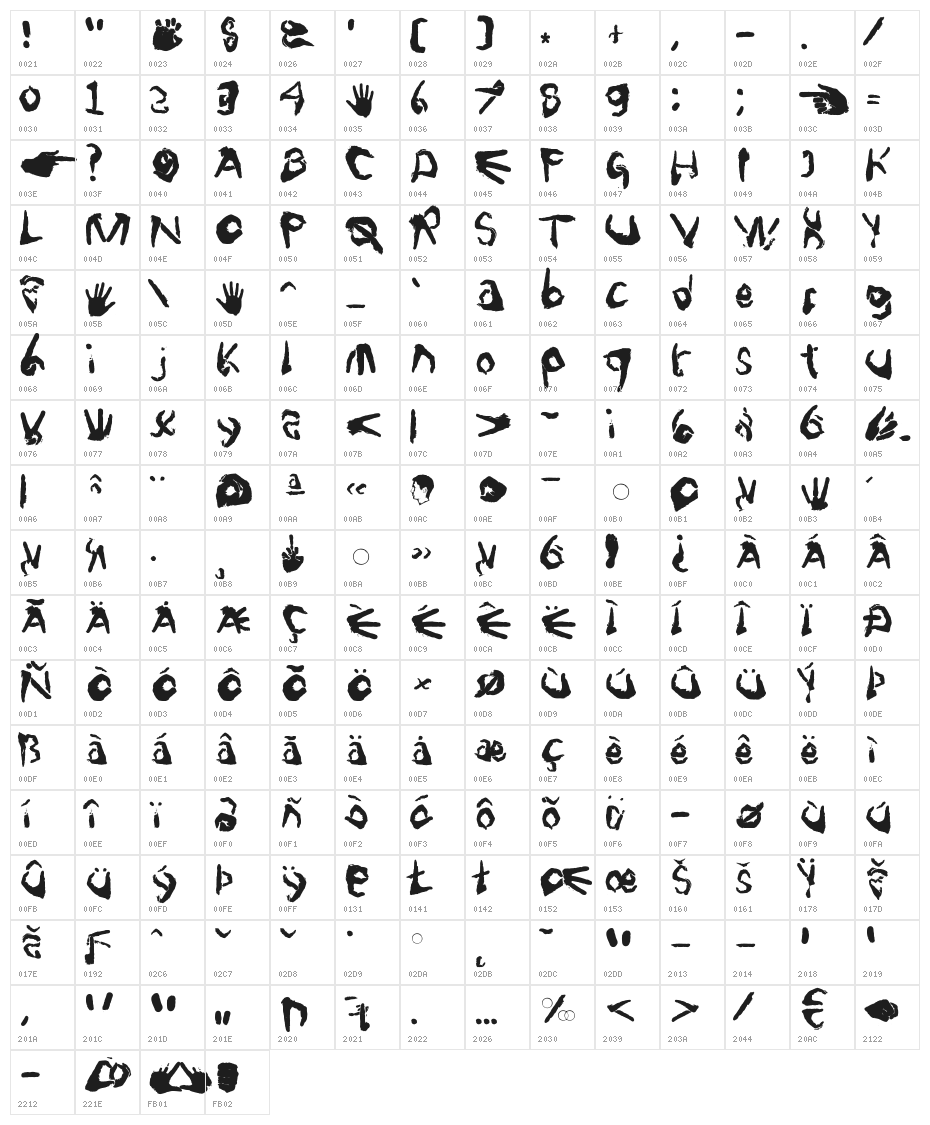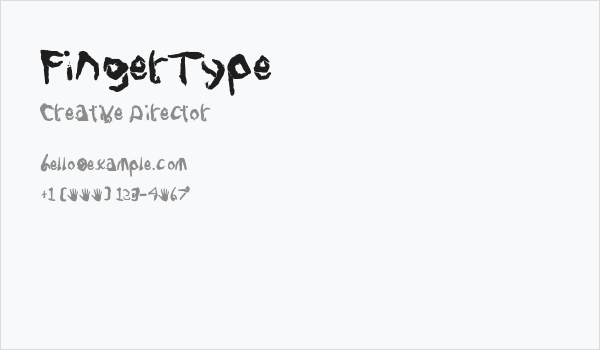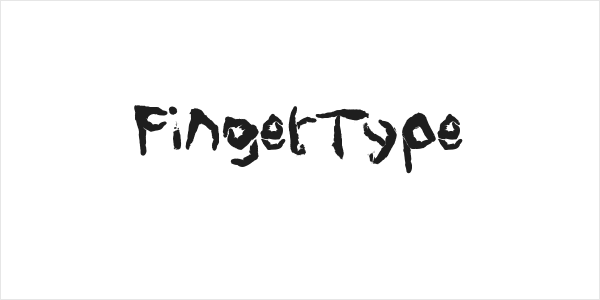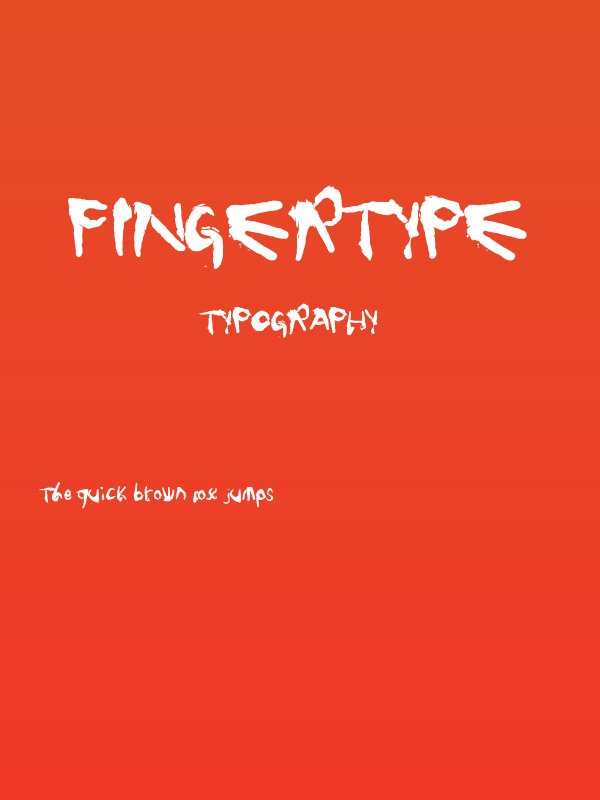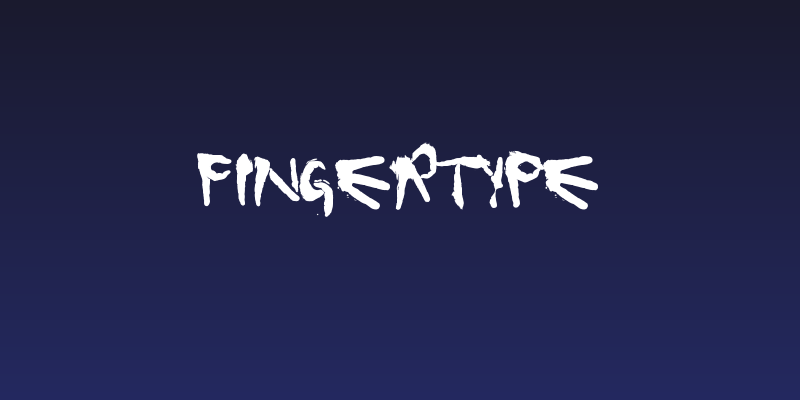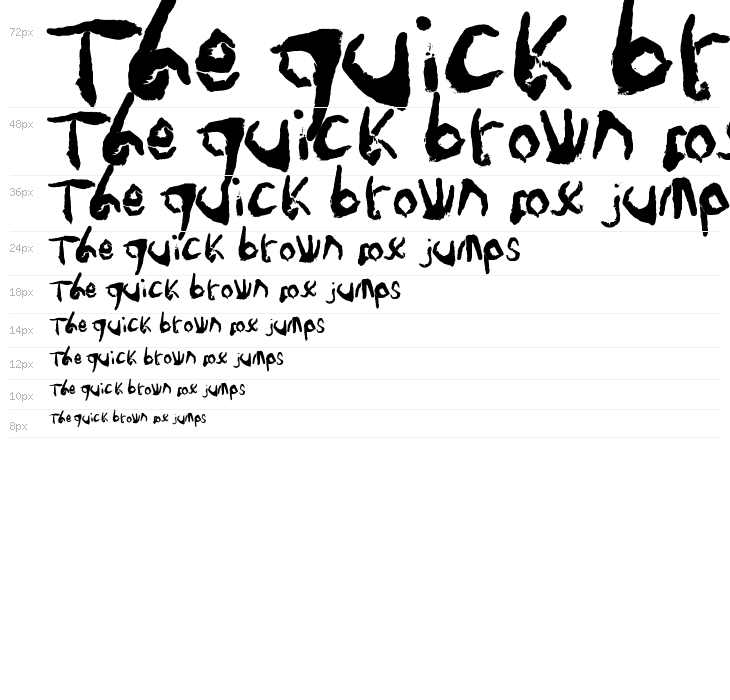
FingerType Font
FingerType Description
This font features a highly artistic and abstract design, resembling brush strokes or ink splatters. Each character appears to be crafted with a sense of spontaneity, giving it a dynamic and expressive feel. The uppercase and lowercase letters maintain a consistent style, with irregular edges and varying thickness that suggest a hand-drawn quality. Numbers and special characters follow the same aesthetic, adding to the cohesive look of the font. The overall appearance is bold and striking, making it suitable for creative and unconventional projects.
| Overall Style | Artistic, Expressive |
| Use Case | Headlines, Posters, Artistic Designs |
| Proposed Projects | Ideal for artistic projects, album covers, posters, and any design requiring a bold, creative touch. |